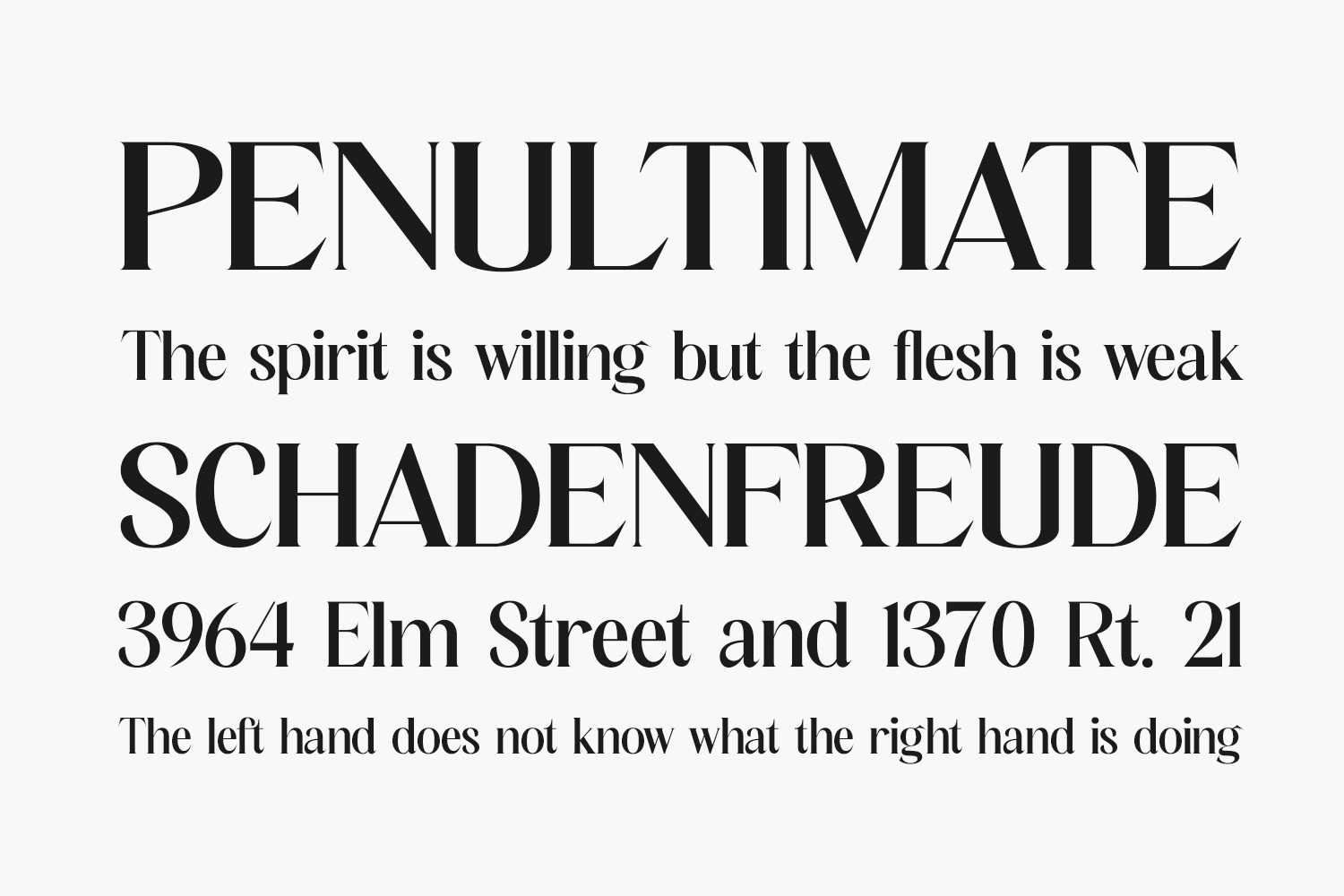
Black Runters Free Font – Elegant Serif for Luxury & Editorial Design
Black Runters is a refined and sophisticated serif font designed by Storytype Studio to bring timeless elegance and modern clarity to your creative projects. With its clean lines, delicate serifs, and warm detailing, this free decorative typeface works perfectly for crafting high-end logos, wedding invitations, fashion brand identities, editorial headers, and more. Available in OTF format — ideal for designers seeking a stylish serif font that blends classical beauty with contemporary minimalism.
Why Choose Black Runters?
- Elegant Style: Combines smooth curves with clean serifs for a polished, professional appearance.
- Ideal for Luxury Branding: Perfect for upscale fashion labels, perfume packaging, or boutique shop identities needing refinement.
Where to Use Black Runters?
Black Runters shines across a variety of creative applications:
- Logos & Brand Identities: Adds sophistication to brand kits for lifestyle blogs, cosmetics, or artisanal studios.
- Wedding Invitations: Brings warmth and charm to formal stationery sets, RSVP cards, and bridal name typography with a handcrafted appeal.
- Packaging Design: Ideal for product labels on candles, perfumes, or gourmet goods requiring a premium look.
- Editorial Headers: Stands out in blog titles, magazine covers, and advertising campaigns with a vintage tone.
- Social Media Graphics: Creates bold text overlays for Instagram Stories, Pinterest pins, TikTok videos, and YouTube banners with a refined style.
Design Tips with Black Runters
- Glyphs: Uppercase (A-Z), lowercase (a-z), numerals, punctuation, basic special characters.
- Language Support: English, Spanish, French, German.